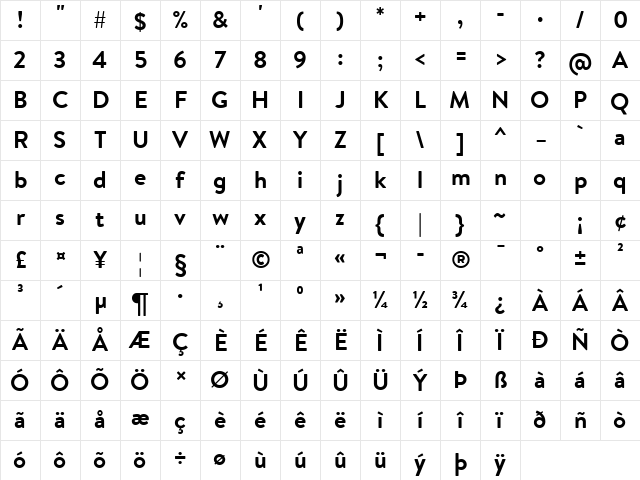
Brandon Text Bold Regular
Foundry: Hannes von Doehren
Designer: Hannes von Doehren
Design Context for Brandon Text Bold
Brandon Text Bold is a composed and adaptable typeface that performs quietly and consistently across a wide range of design contexts. Its bold stroke weight gives it real presence on the page.